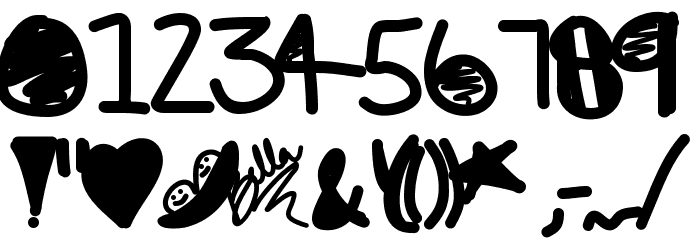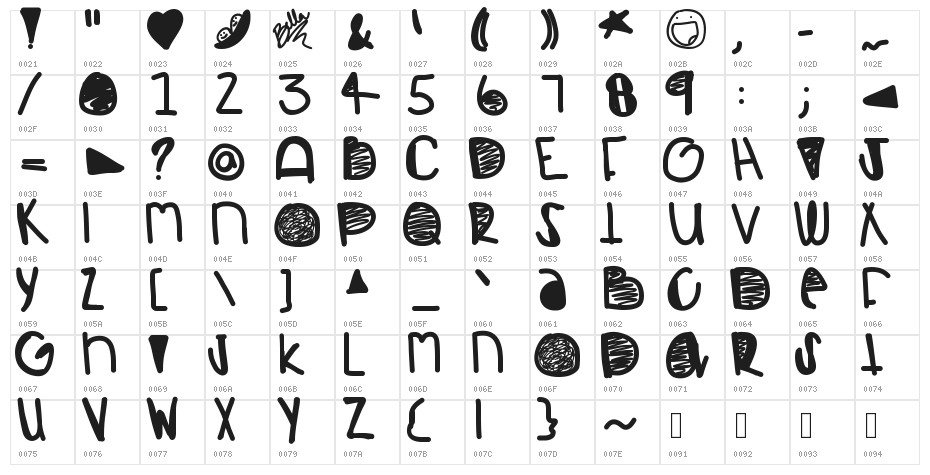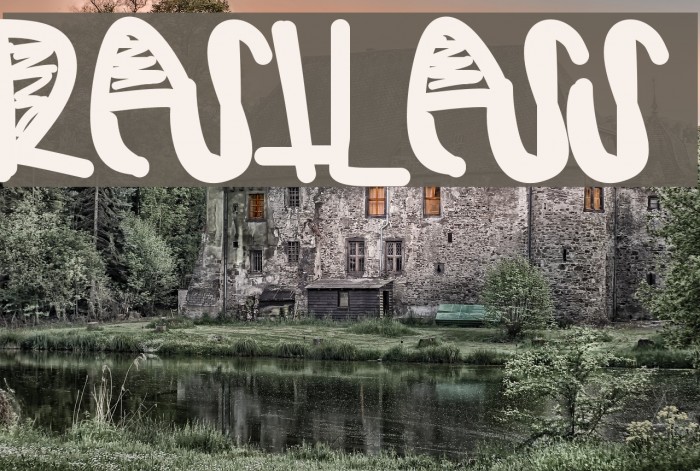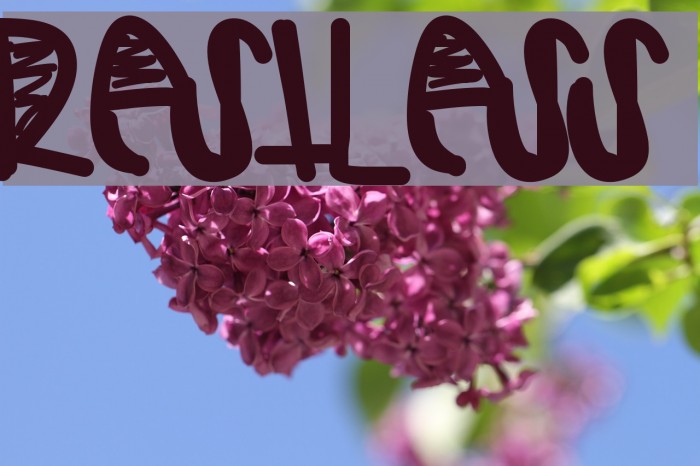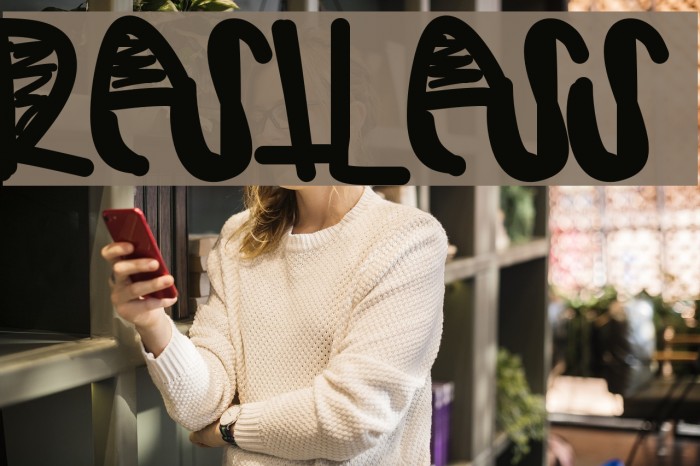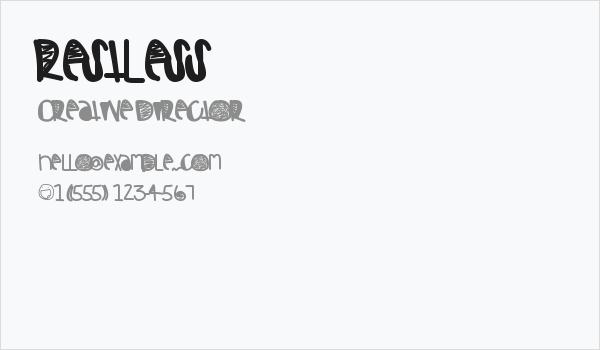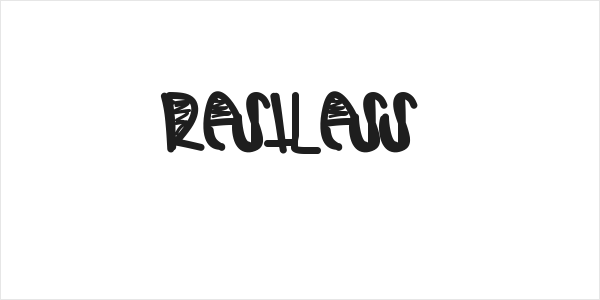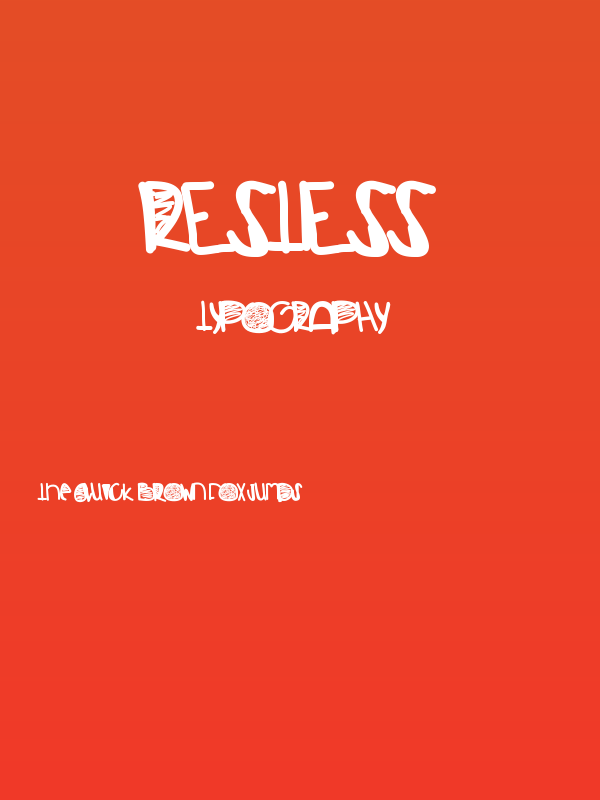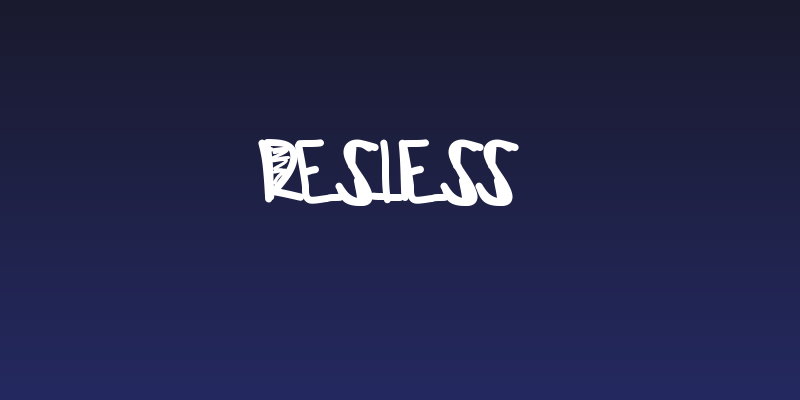
Restless Font
Restless Description
This font is a bold, expressive handwritten style that exudes a sense of energy and creativity. The characters are thick and heavily stylized, with a playful and dynamic appearance. Each letter is uniquely crafted with a sense of individuality, making it perfect for projects that require a personal touch. The numbers and special characters maintain the same lively and bold aesthetic, ensuring consistency throughout any text. This font is ideal for designs that aim to capture attention and convey a sense of fun and spontaneity.
Proposed ProjectsIdeal for posters, greeting cards, children's books, and creative branding projects.